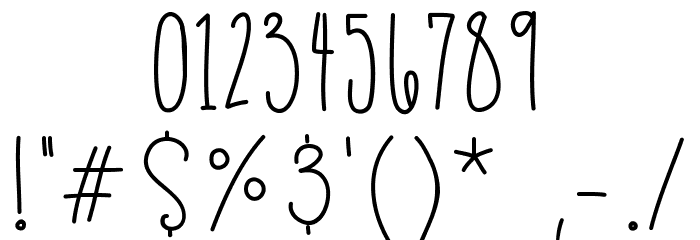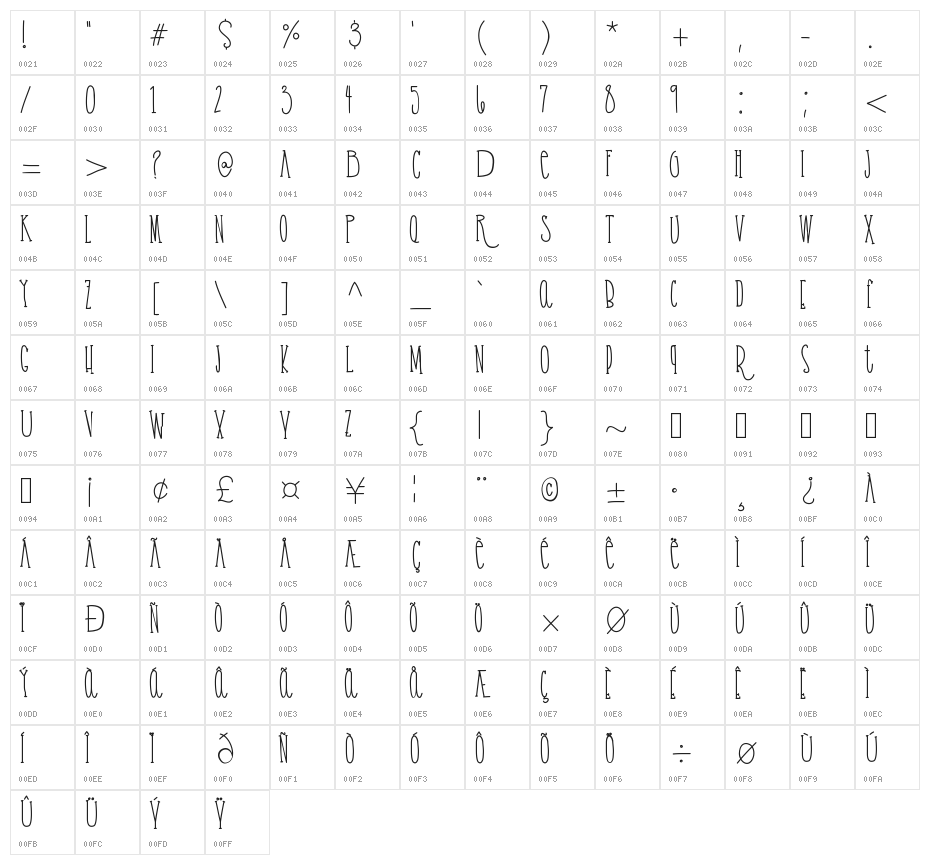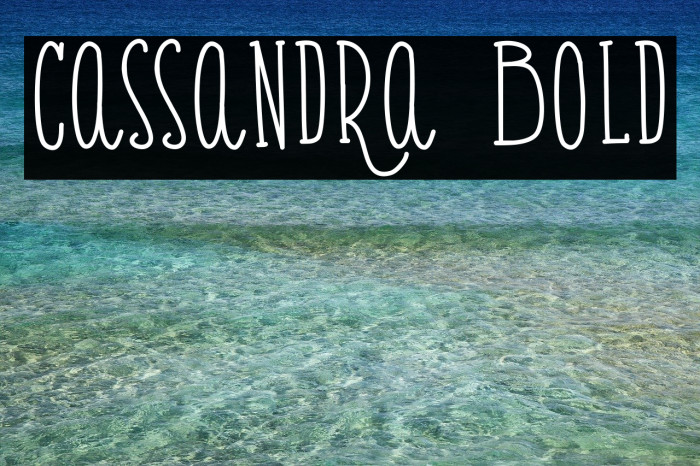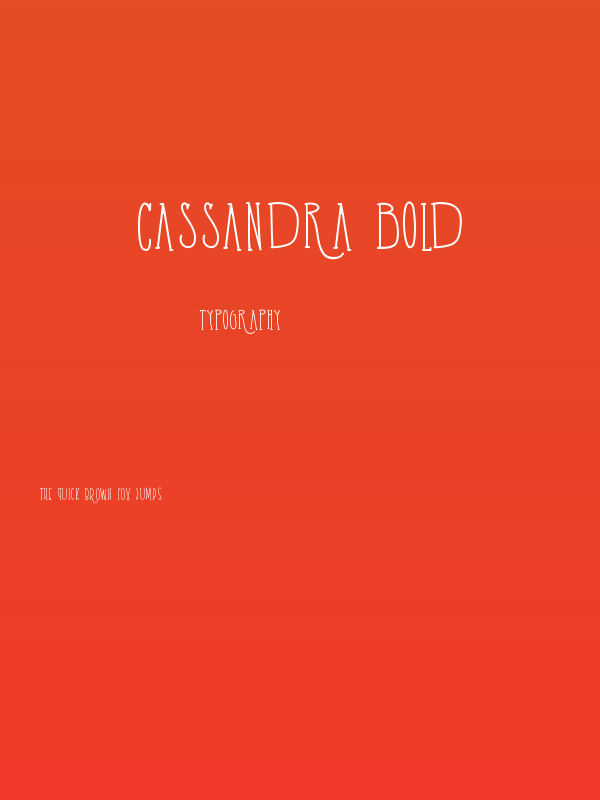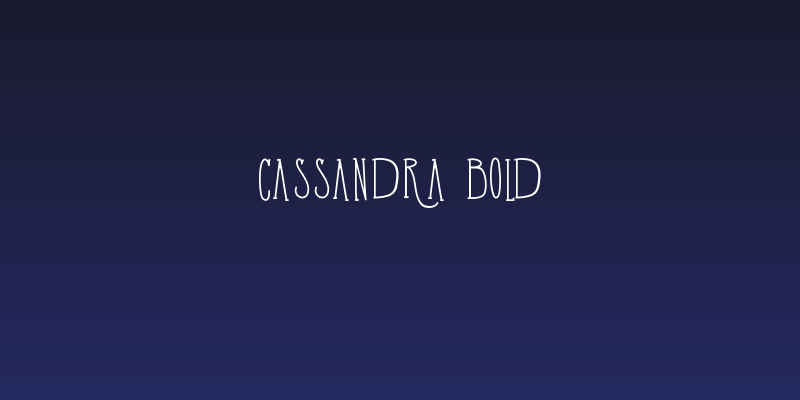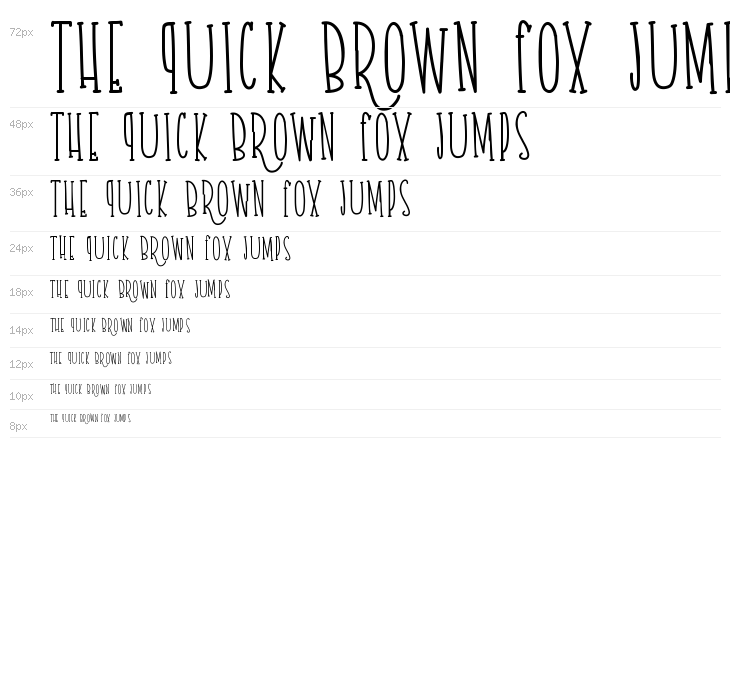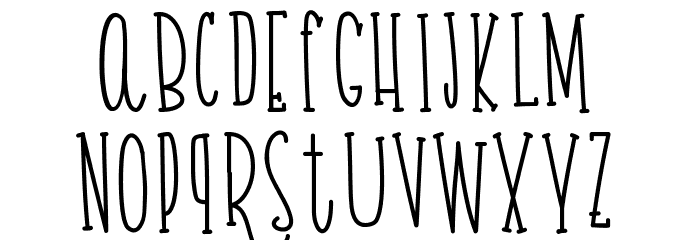
Cassandra Bold Font
Cassandra Bold Description
This font features a playful and whimsical design with tall, narrow characters that have a hand-drawn appearance. The strokes are slightly irregular, giving it a casual and friendly feel. The uppercase and lowercase letters maintain a consistent style, with elongated vertical lines and subtle curves. The numbers and special characters are designed to match the overall aesthetic, ensuring a cohesive look across all text elements. This font's unique style makes it stand out, adding a touch of personality to any project.